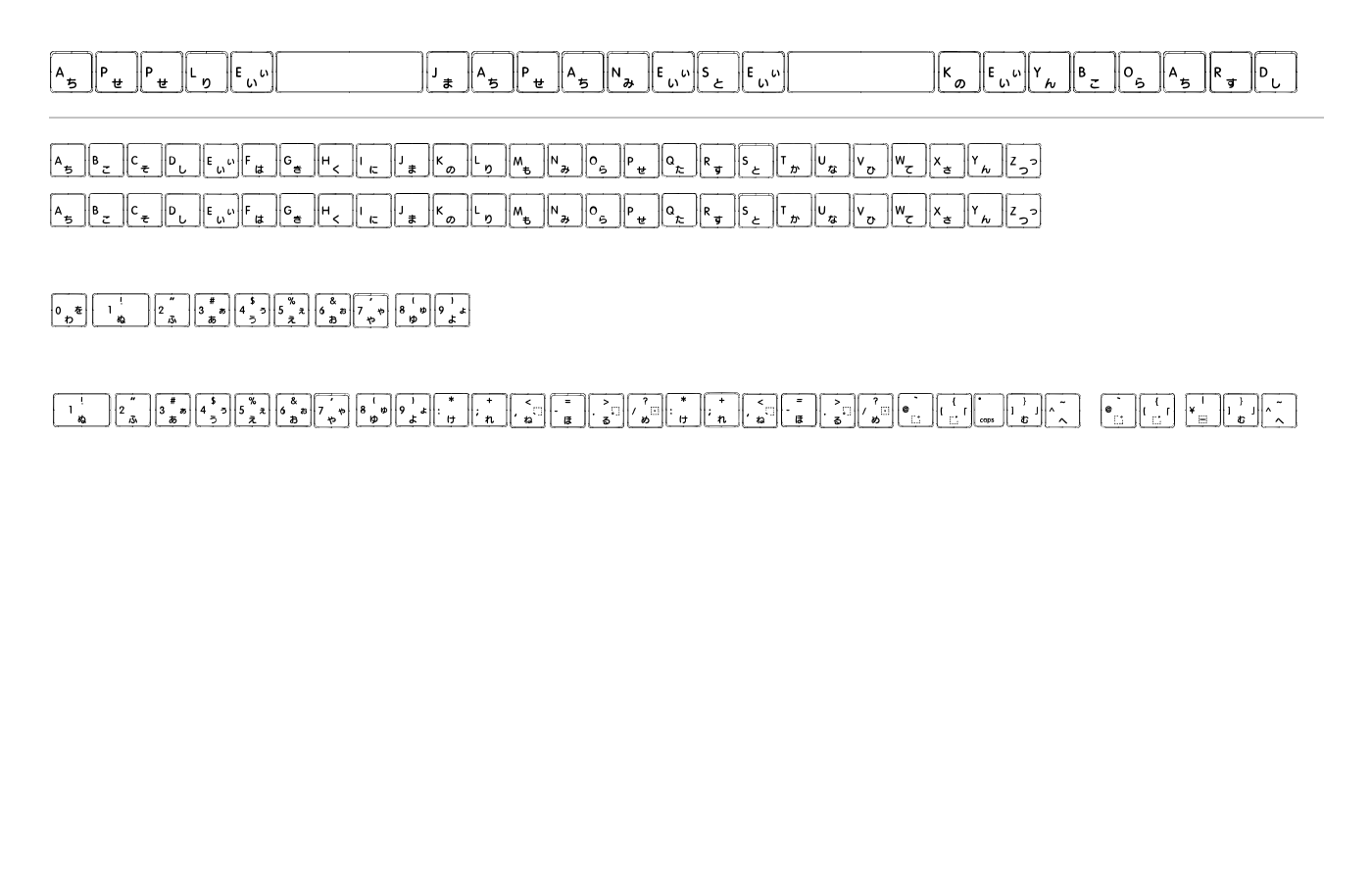
Apple Japanese Keyboard Font is a clean, sans serif typeface designed with a focus on clarity and functionality. It features a balanced x-height and consistent stroke weight, making it highly readable for both Latin and Japanese characters. This versatile font works well for user interfaces, digital displays, and everyday communication, where legibility and simplicity are essential.
Apple Japanese Keyboard Font
About Apple Japanese Keyboard Font